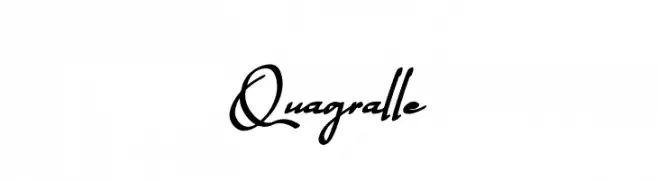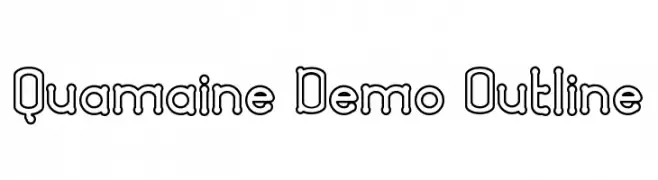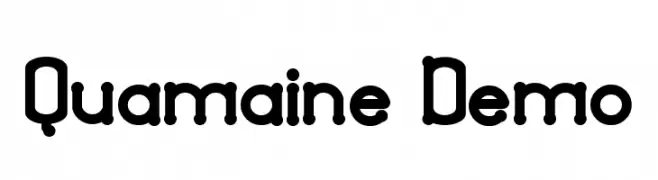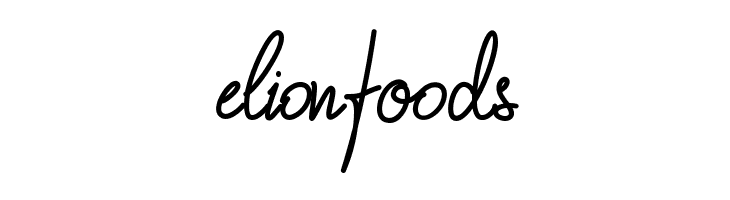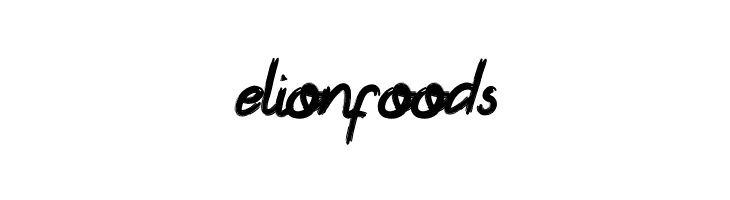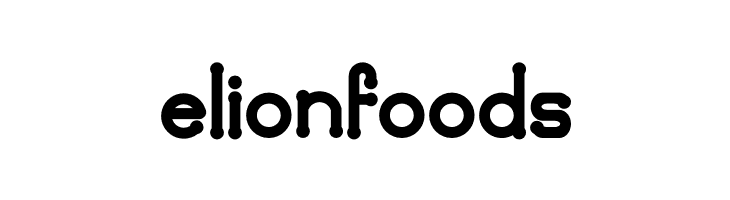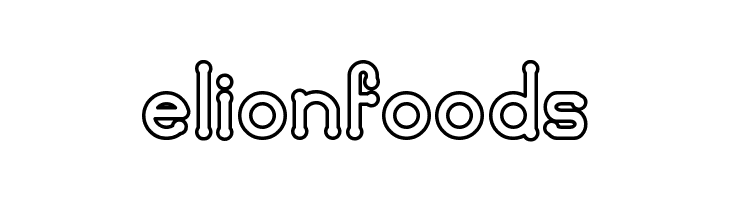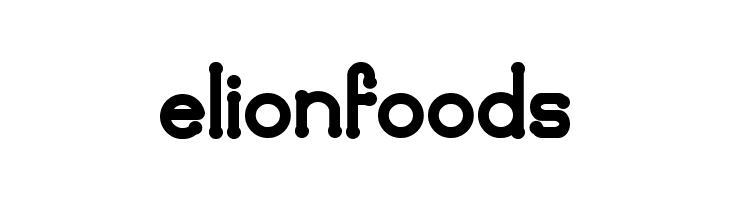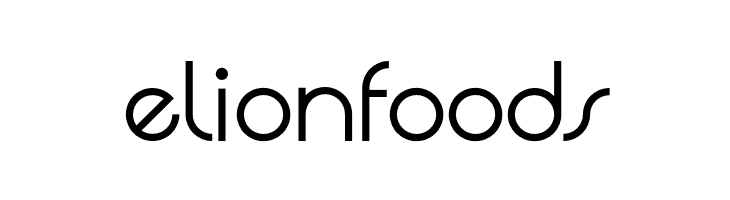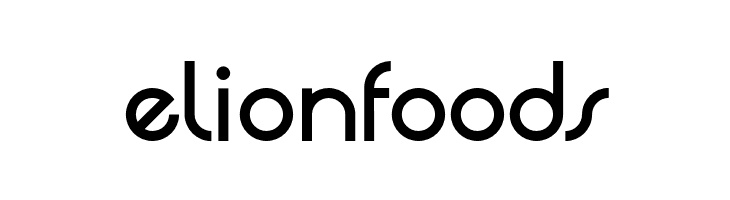
A flowing, elegant script font with graceful curves and artistic flair.
A playful and elegant script font with flowing cursive letterforms.
An elegant script font with decorative flourishes and classic calligraphy style.
A modern, geometric sans-serif font with clean lines and uniform stroke width.
A modern, geometric font with clean, rounded edges and uniform stroke width.
A dynamic and fluid script font with elegant, flowing letterforms.
A bold, rounded font with a modern and playful style.
A dynamic brush-style font with fluid, expressive strokes and a hand-drawn appearance.
A playful, rounded font with bold, smooth curves and a friendly appearance.
A modern, outlined font with a playful and bold style.